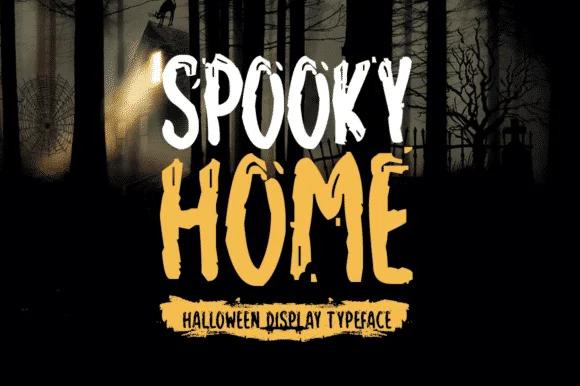
Spooky Home Font
Spooky Home Font is perfect for Halloween decorations, haunted house attractions, horror movie posters, spooky event invitations, ghost tour marketing, Halloween party materials, eerie escape room branding, supernatural-themed designs, horror game interfaces, and creepy seasonal campaigns.
Spooky Home Font is exciting because it masterfully captures the chilling atmosphere and supernatural dread of haunted houses through ominous letterforms that evoke ghostly presence and eerie domestic horror. This hauntingly designed typeface combines familiar homey elements with terrifying supernatural twists, making it perfect for brands and projects that want to communicate spine-tingling fear while maintaining recognizable domestic comfort turned sinister.
The Spooky Home Font family includes multiple eerie weights with haunted house styling, featuring ghostly character variations and supernatural decorative elements. The font showcases creepy architectural details, haunted proportions, and spectral design characteristics that create a comprehensive typographic system for horror and Halloween applications.
The haunted appeal of Spooky Home Font makes it an essential tool for entertainment venues, seasonal retailers, and event organizers who need typography capable of communicating supernatural dread and Halloween excitement. The font's eerie character helps establish immediate connections with horror enthusiasts while creating memorable brand experiences that capture the thrilling fear of haunted attractions.
Haunted houses, Halloween retailers, and horror entertainment companies consistently choose Spooky Home Font for its ability to convey genuine supernatural terror and haunted house authenticity through typography. The font excels in applications where establishing spooky credibility and horror atmosphere are essential to seasonal success, making it particularly effective for Halloween marketing, horror entertainment, and supernatural-themed businesses targeting thrill-seeking consumers.
This font's comprehensive character set includes haunted letterforms, ghostly numerals, eerie punctuation marks, and supernatural symbols that support authentic horror typography composition. The consistent spooky styling maintains the haunted house theme throughout all characters while ensuring professional readability across all Halloween and horror design projects requiring Spooky Home Font Free Download functionality.